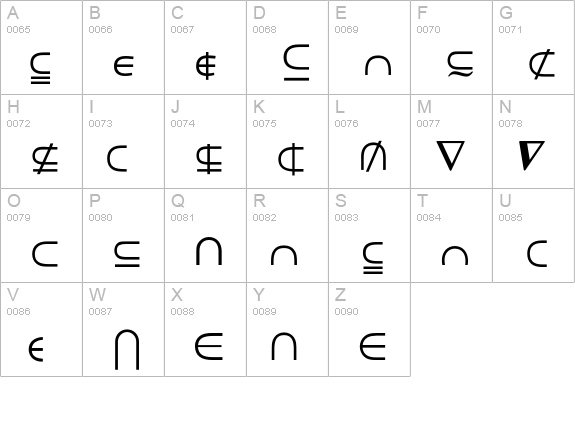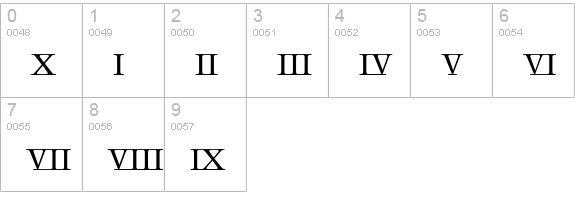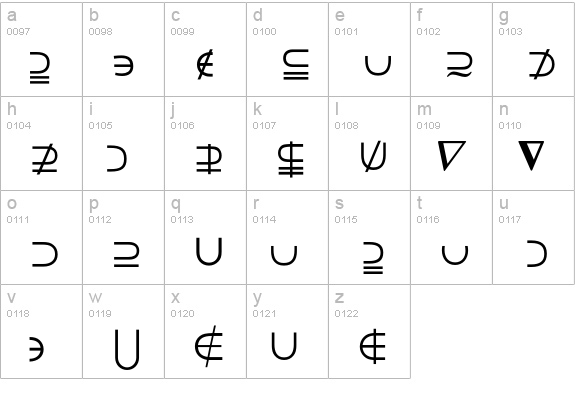
MathTechnicalP08 Font Details
MathTechnicalP08 font is a versatile and highly functional typeface that is perfect for all your mathematical and technical needs. With its clean and precise design, this font is ideal for displaying complex equations, formulas, and scientific notations with utmost clarity and readability. The MathTechnicalP08 font features a wide range of mathematical symbols, glyphs, and characters, ensuring that you have all the tools you need to accurately represent mathematical concepts in your documents, presentations, or research papers. Whether you are a teacher, student, researcher, or professional in the field of mathematics or science, this font will undoubtedly be a valuable addition to your typography collection. One of the standout features of MathTechnicalP08 font is that it is available for free. Yes, you read that right! You can freely download this remarkable font at FontsMarket.com, a trusted source for high-quality fonts. This means that you can enjoy all the benefits of this exceptional font without having to spend a single penny. The MathTechnicalP08 font is designed with precision and attention to detail, ensuring that each character is perfectly balanced and proportioned. The clean lines and sharp edges of the font make it easy to read, even at small sizes or in dense mathematical equations. Whether you are using MathTechnicalP08 font for academic purposes, professional presentations, or personal projects, you can rest assured that this font will deliver outstanding results. Its versatility and readability make it suitable for a wide range of applications, from textbooks and scientific journals to websites and digital media. In conclusion, MathTechnicalP08 font is a must-have for anyone working with mathematics or technical subjects. Its comprehensive range of symbols, exceptional clarity, and free availability make it a top choice for professionals and enthusiasts alike. Don't miss out on this fantastic font – head over to FontsMarket.com and download MathTechnicalP08 font today!